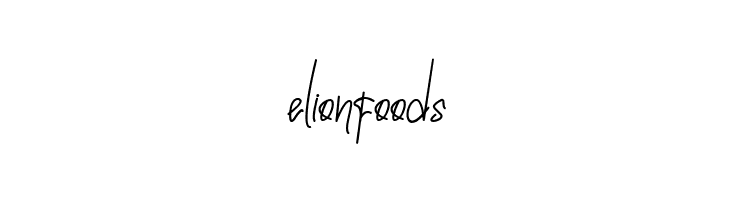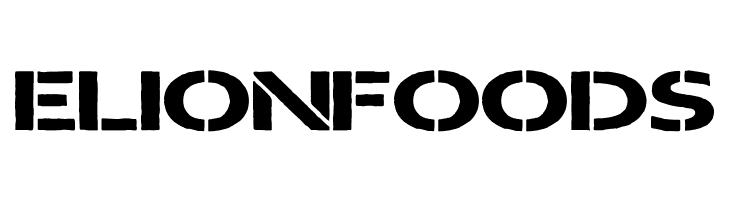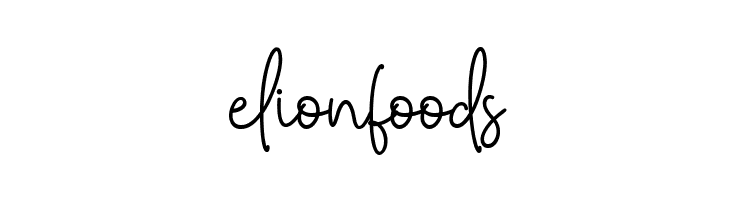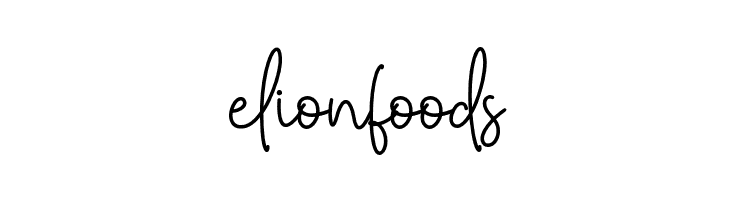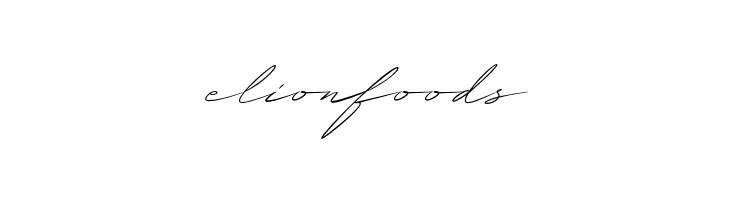
A dynamic and expressive script font with fluid, cursive strokes.
A sophisticated, elegant handwritten font with flowing, interconnected letterforms.
A bold, stencil-style font with a military-inspired design.
A flowing, cursive font with an elegant, handwritten style.
A charming, elegant handwritten script with flowing, connected letters.
A charming and elegant handwritten font with fluid curves.
A modern, elegant script font with a flowing cursive style.
A fluid, elegant handwritten font with a delicate and sophisticated appearance.
A dynamic and flowing script font with elegant, elongated letterforms.
An elegant, cursive font with a fluid, handwritten style.